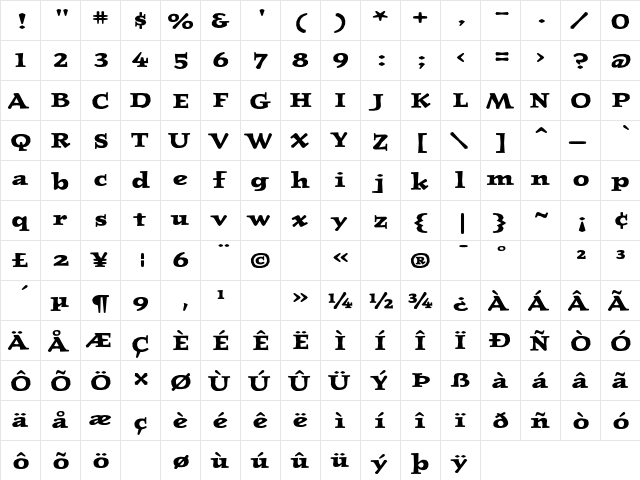
JournalLining-UltraBold Ultra Bold
Design Context for JournalLining-UltraBold Typeface
JournalLining-UltraBold takes a measured approach to typography — its balanced proportions and neutral character make it a reliable workhorse for both digital and print work. The heavy weight commands attention and anchors typographic hierarchies.